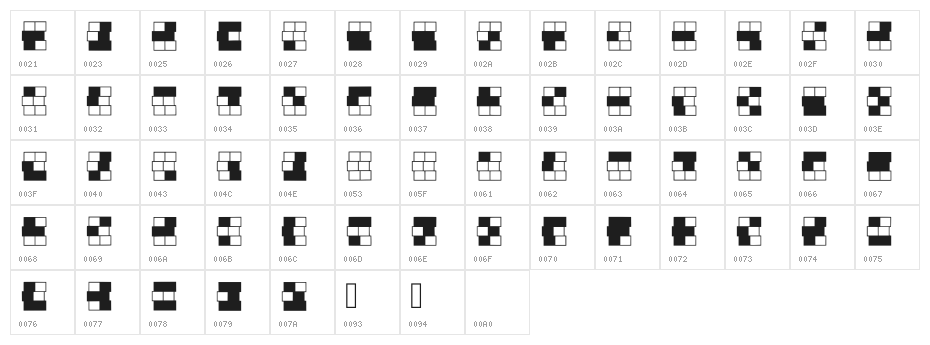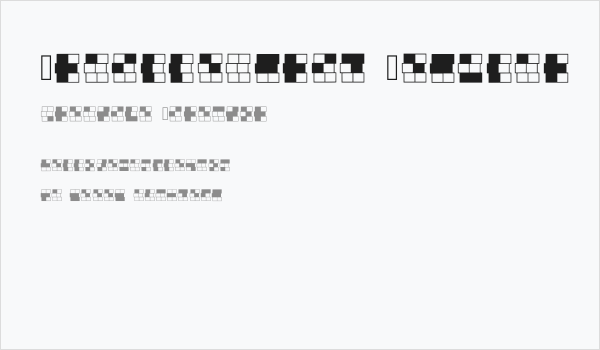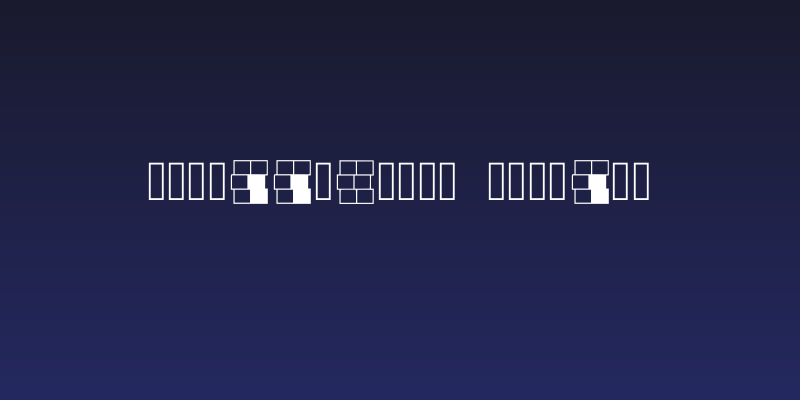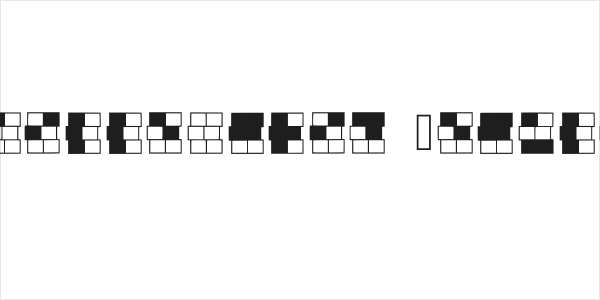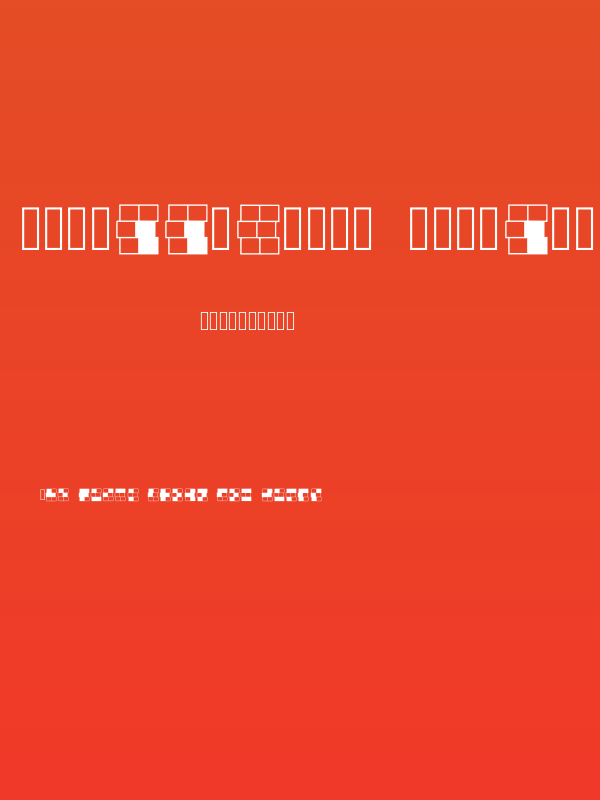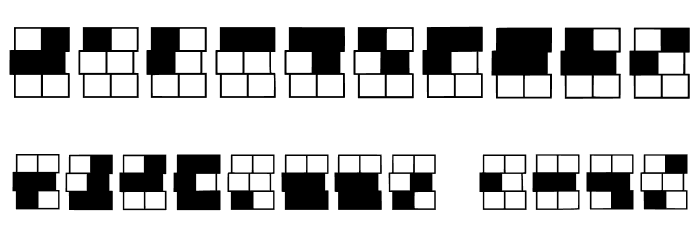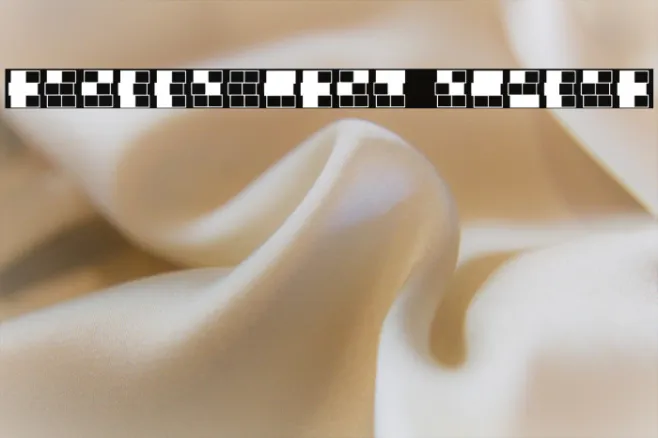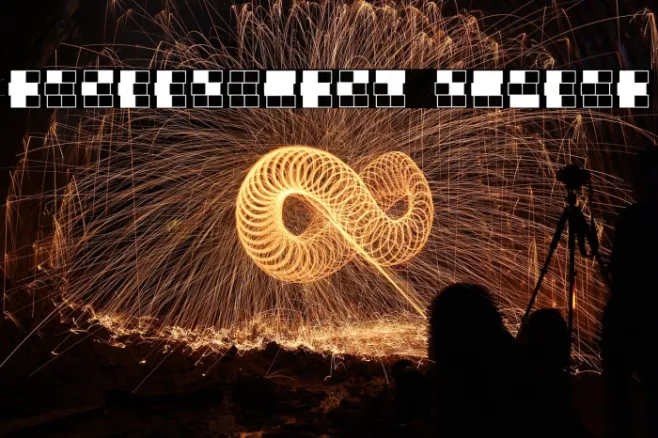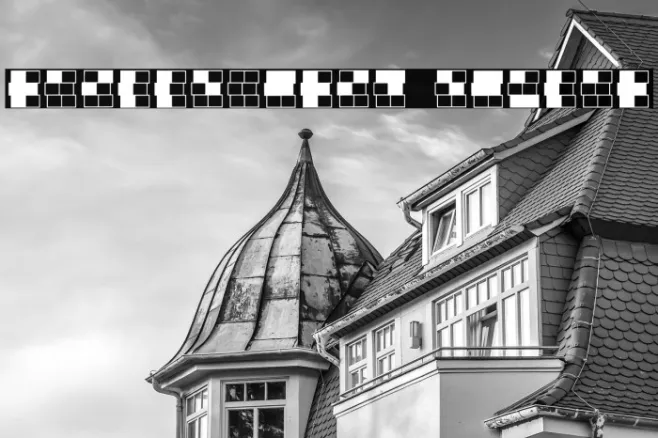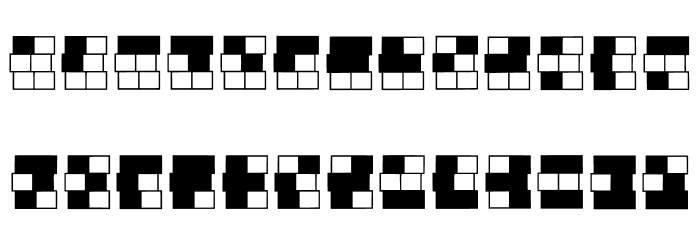
Braille_grid Regular Font
Braille_grid Regular Description
This font features a unique grid-based design, reminiscent of Braille patterns, with each character composed of a series of filled and unfilled squares. The style is highly geometric and abstract, creating a visually striking appearance. The characters are uniform in height and width, maintaining a consistent grid structure throughout. This design choice gives the font a modern and experimental feel, suitable for creative and artistic projects. The bold use of black and white contrast enhances readability while adding a distinct visual impact.
| Overall Style | Modern, Abstract |
| Use Case | Logos, Posters, Artistic Displays |
| Proposed Projects | Ideal for modern art projects, experimental design work, or any creative endeavor that seeks a bold, abstract aesthetic. |